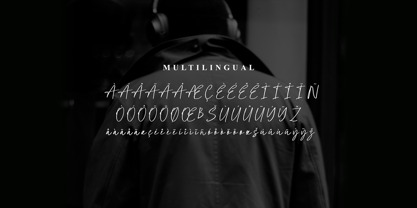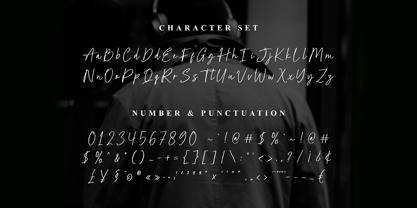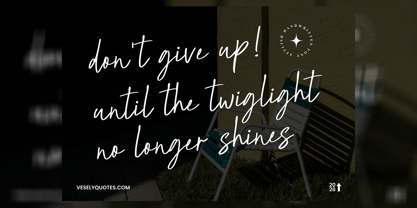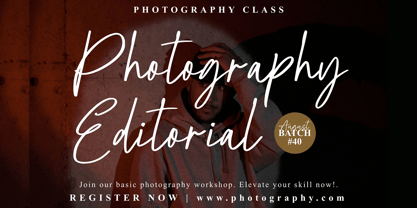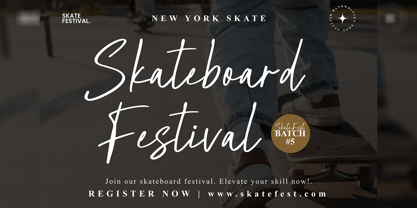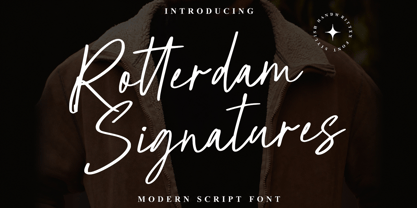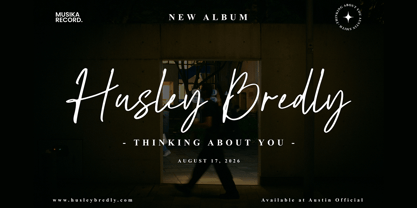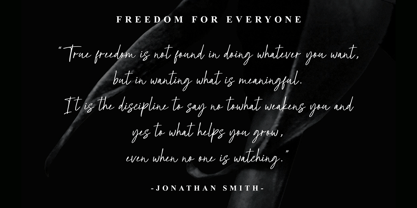
Rotterdam Siganture
by NH TypeStudio
The Rotterdam Siganture Font Family was designed by Hadi Nasrul and published by NH TypeStudio. Rotterdam Siganture contains 1 styles. More about this family
Elevate Your Designs with the Timeless Elegance of Rotterdam Signatures
Rotterdam Signatures is a premium, beautifully crafted handwritten font designed to bring a touch of sophistication and personal warmth to your creative projects. With its fluid strokes and organic rhythm, this typeface is the ideal choice for high-end logo design, luxury wedding stationery, professional photography watermarks, and sleek, modern websites.
Every character has been meticulously styled to balance artistic flair with clean legibility, ensuring your brand stands out with an authentic, human touch. Fall in love with its incredibly distinct, timeless aesthetic, and utilize its versatile charm to transform ordinary layouts into spectacular, high-impact designs.
Designers: Hadi Nasrul
Foundry: NH TypeStudio
Rotterdam Siganture